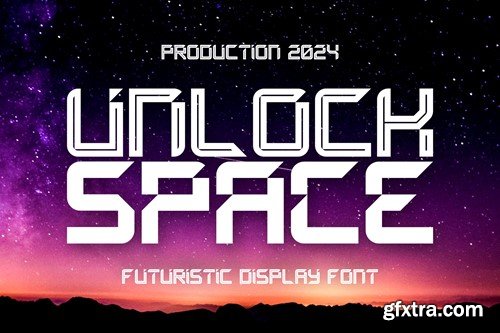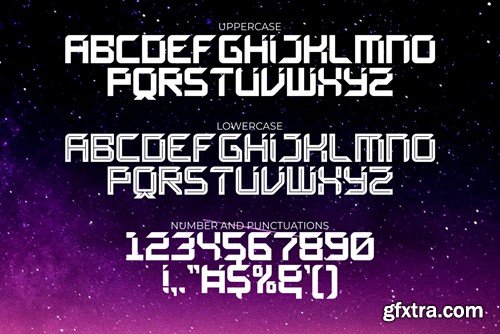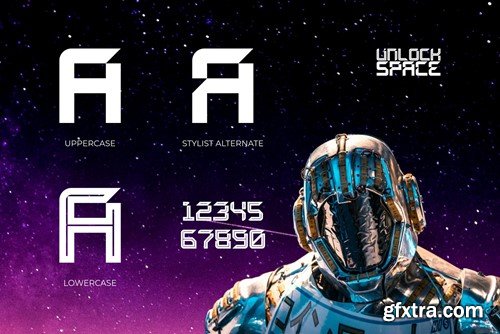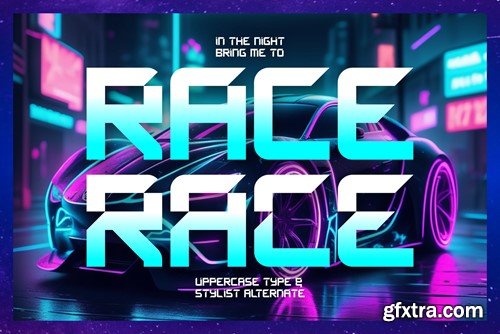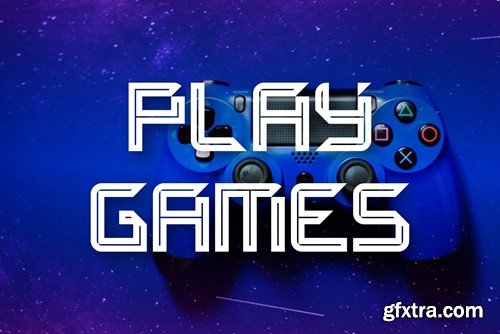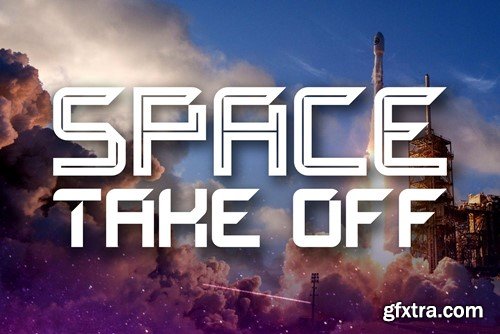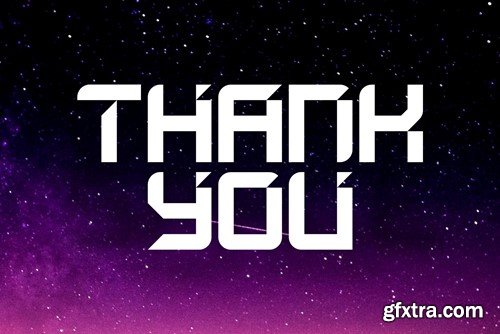
解锁空间 - 现代未来主义显示器字体 GN9ZBGW
Step into the future of design with Unlock Space, the game-changing futuristic display font that propels your projects light-years ahead. More than just a font, Unlock Space is a visual journey into the unknown, where sleek lettering and avant-garde design converge to redefine the limits of typographic innovation. Crafted with meticulous precision, each character in Unlock Space serves as a portal to the next frontier of creativity. Whether you're designing for tech branding, sci-fi posters, or any project seeking a touch of cosmic sophistication, this font ensures your words transcend the ordinary. Unlock Space isn't just a typeface; it's a key to unlocking a new dimension in design. Elevate your creations with the sleek and visionary allure of Unlock Space – because, in the world of futuristic fonts, the future has never looked this bold and extraordinary! File Included: Features: That's it! If you have any questions don't hesitate to ask! Stay Classy!